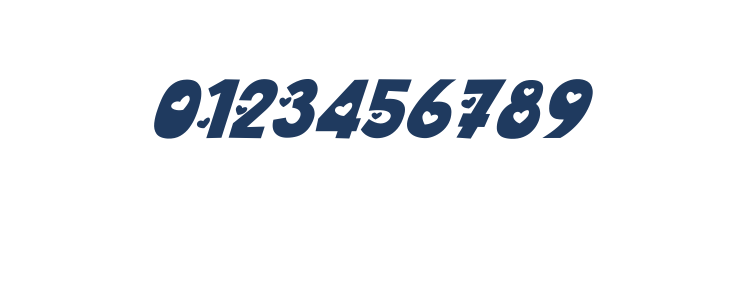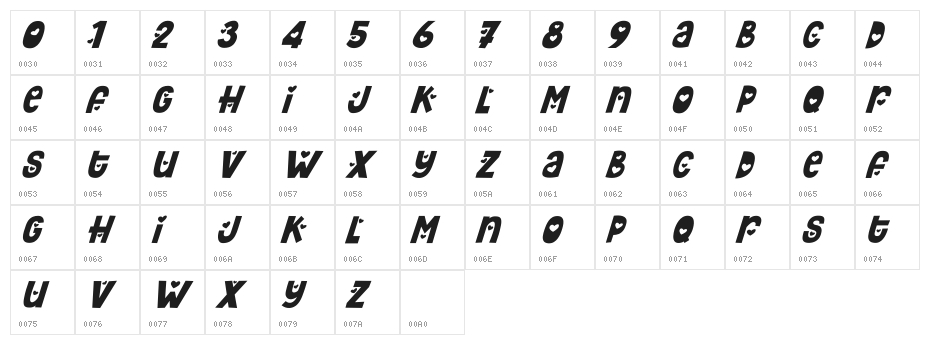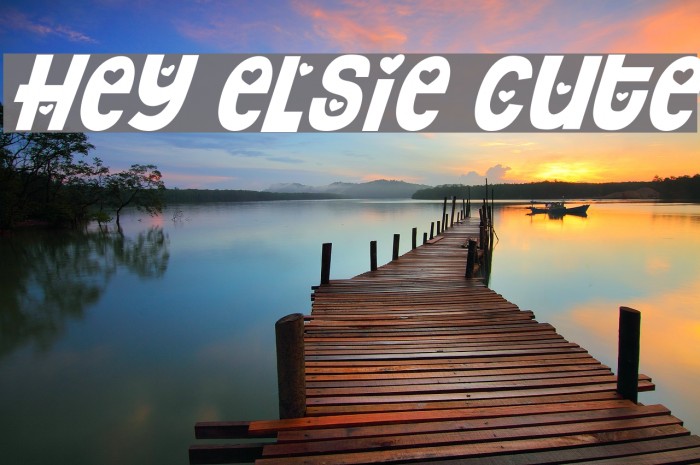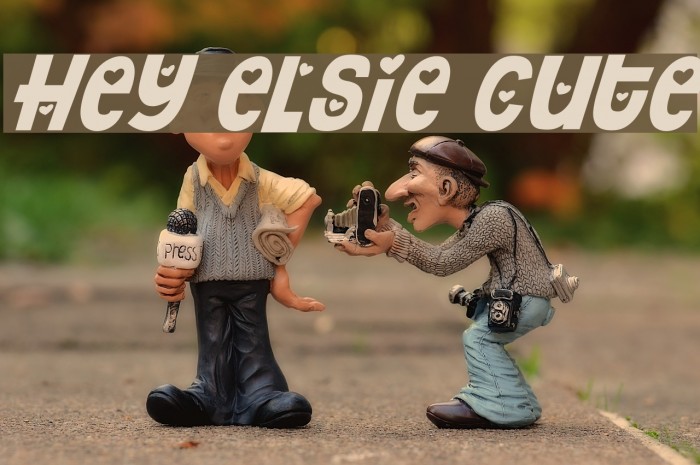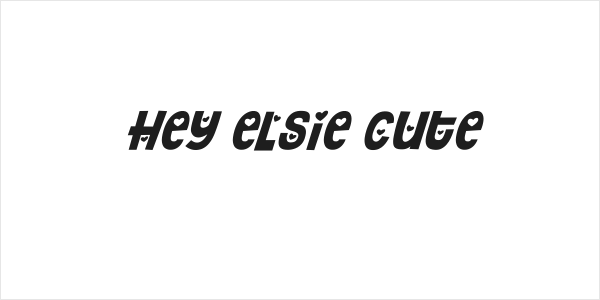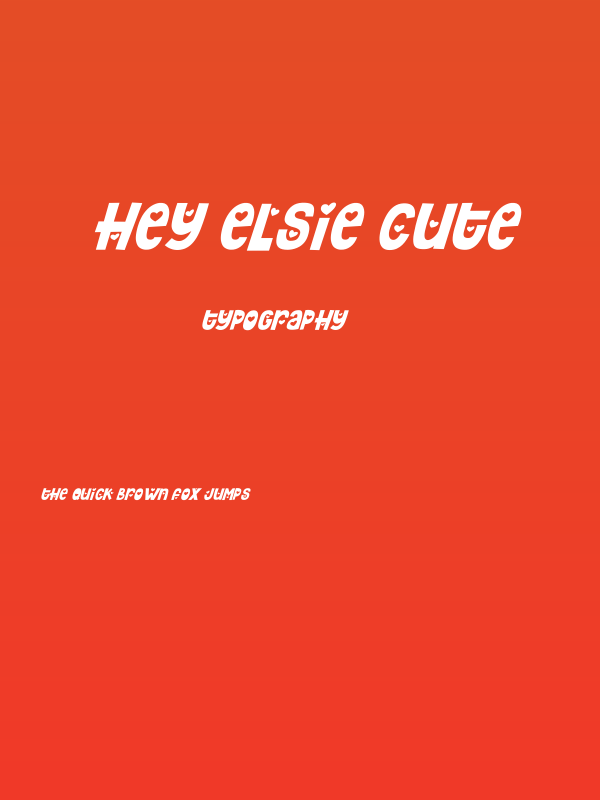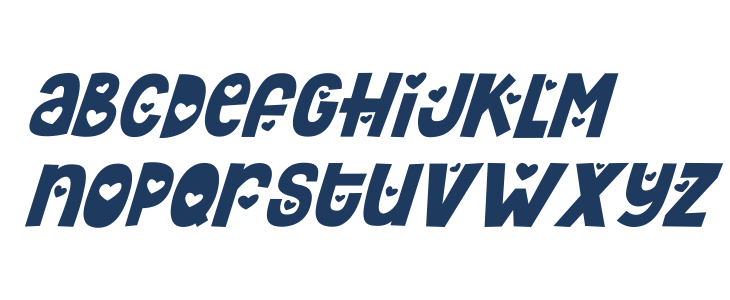
Hey Elsie Cute Font
Hey Elsie Cute Description
This playful and whimsical font features bold, rounded characters with a unique twistΓ’β¬βeach letter is adorned with a heart shape, adding a touch of charm and fun. The font maintains a consistent stroke width, giving it a cohesive and polished appearance. The uppercase and lowercase letters are designed to complement each other, creating a harmonious look. The numbers and special characters are equally engaging, making this font versatile for various creative projects. Its distinctive style is perfect for capturing attention and conveying a sense of joy and friendliness.